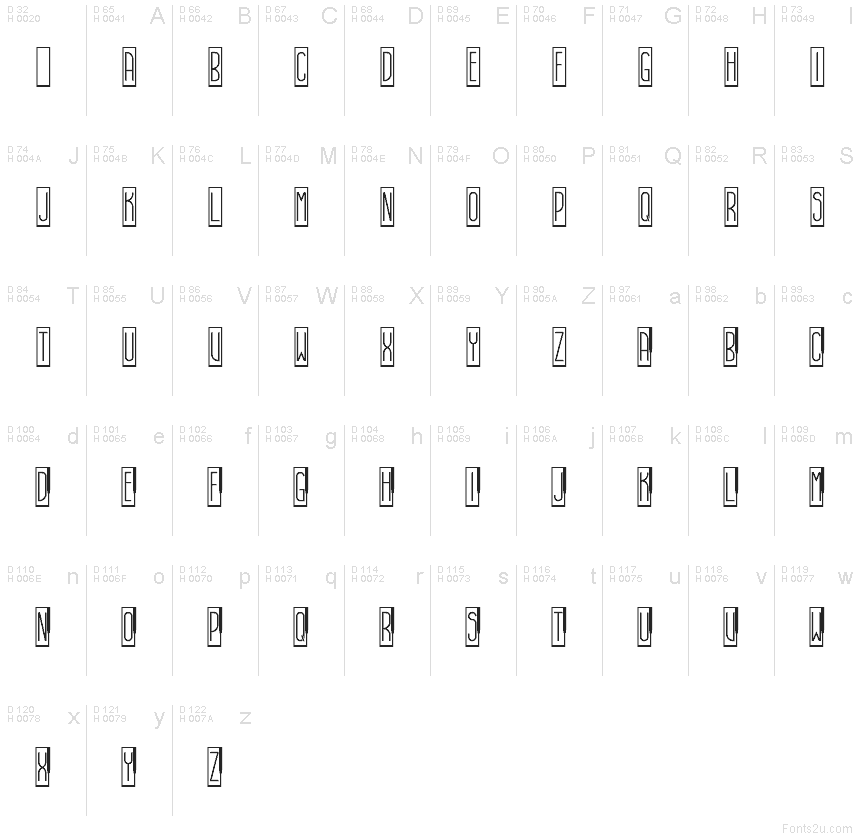
Piano Letters Extra Condensed Regular
Piano Letters Extra Condensed font by Vladimir Nikolic captures a musical essence with its unique, piano key-inspired design. This decorative, display typeface boasts a monospaced appearance and elongated forms, perfect for making an artistic statement. As a free font option, the condensed font makes for a trendy addition to visual content.
Use it in projects related to music lovers including band posters, event flyers, musical brochures, and music shop logos. Visual branding materials in the educational sector such as school materials and uniform prints are places where this typeface might fit nicely.